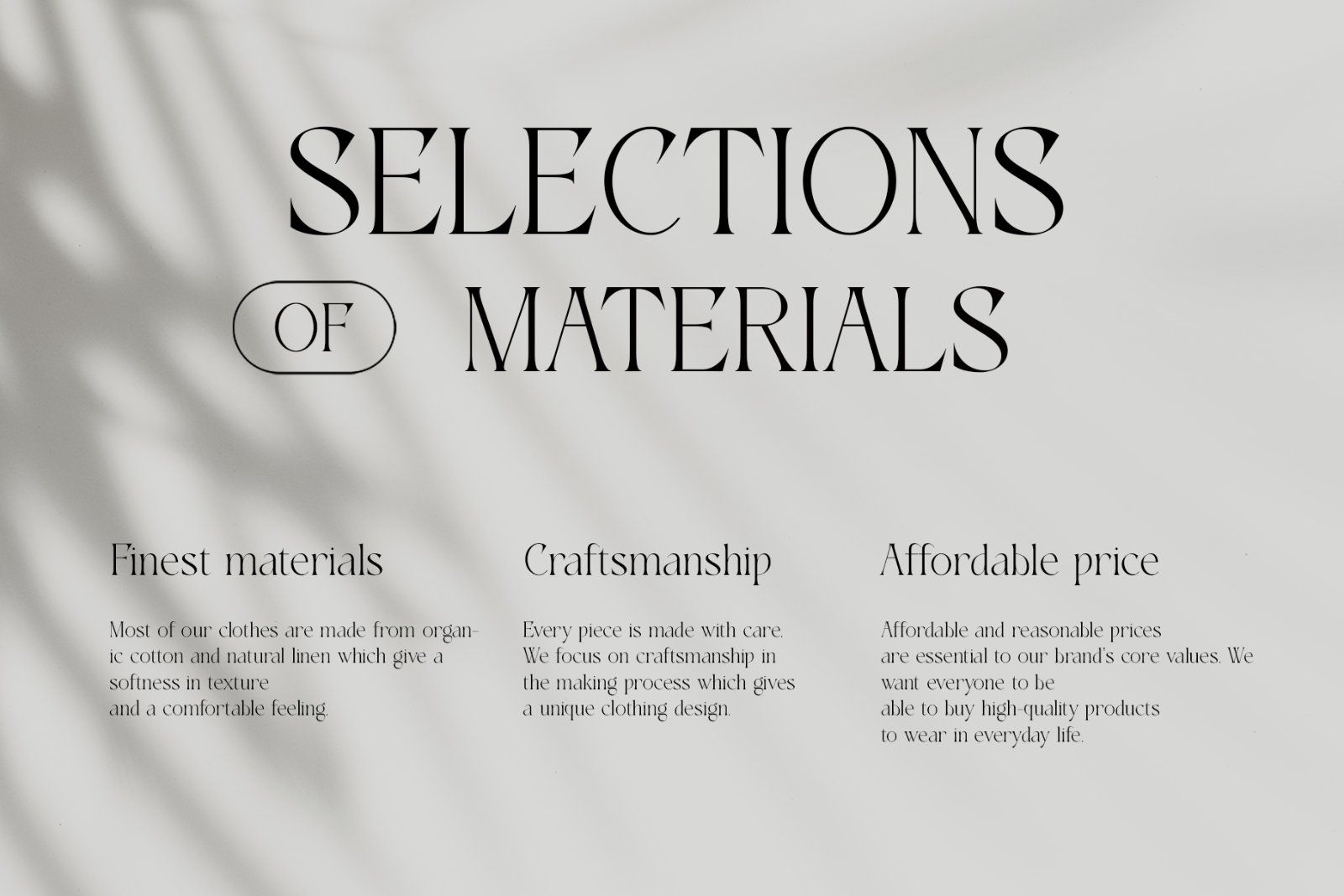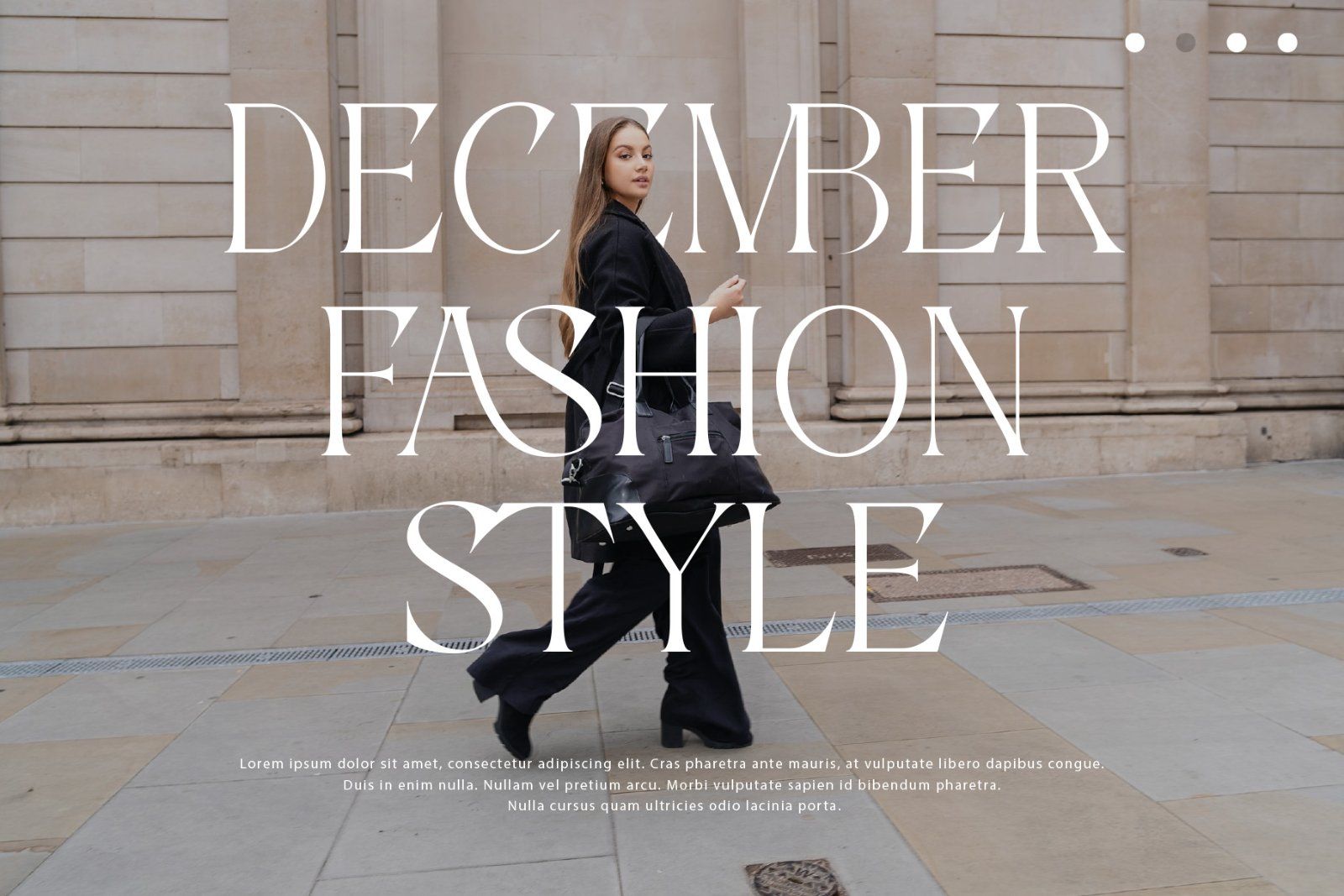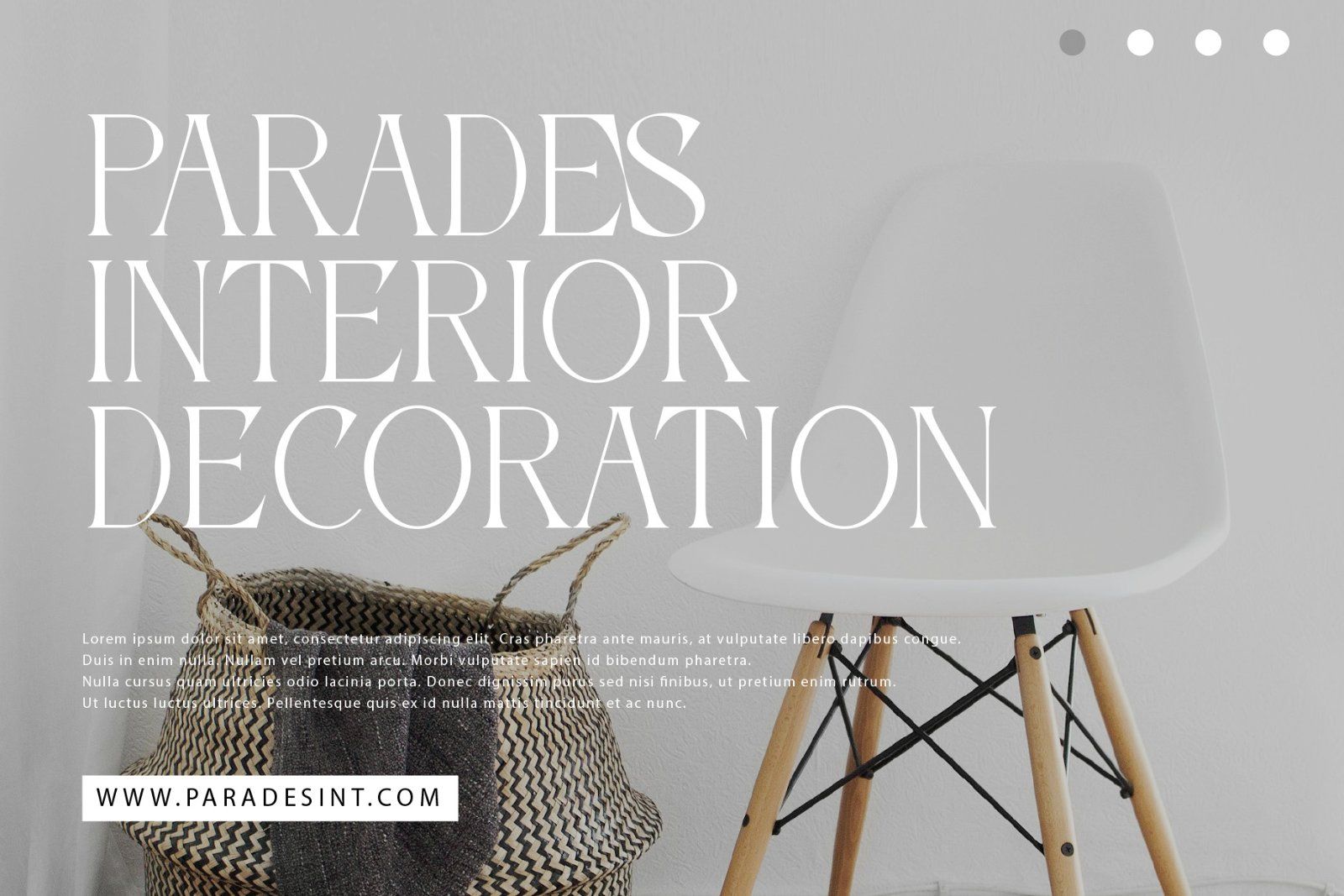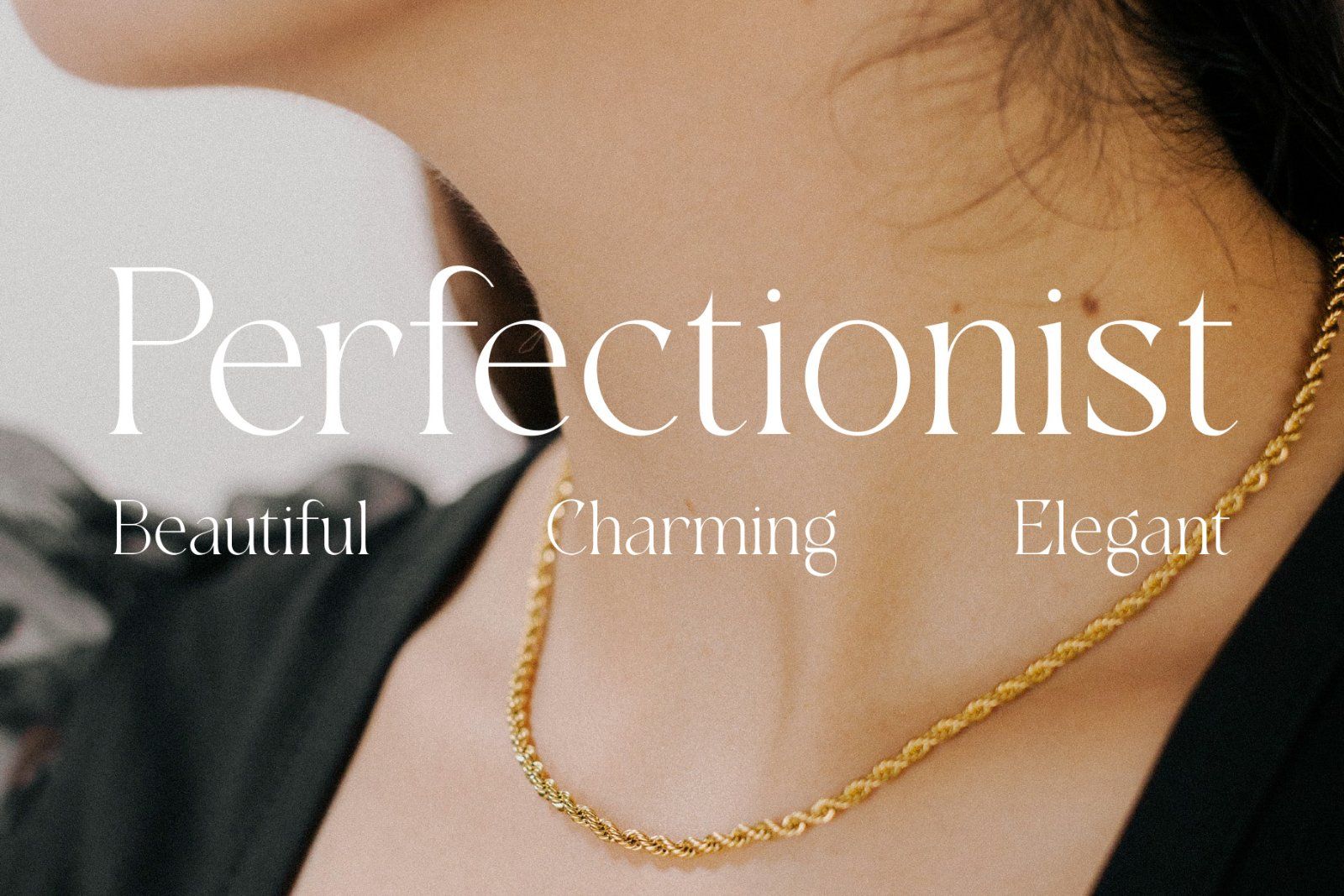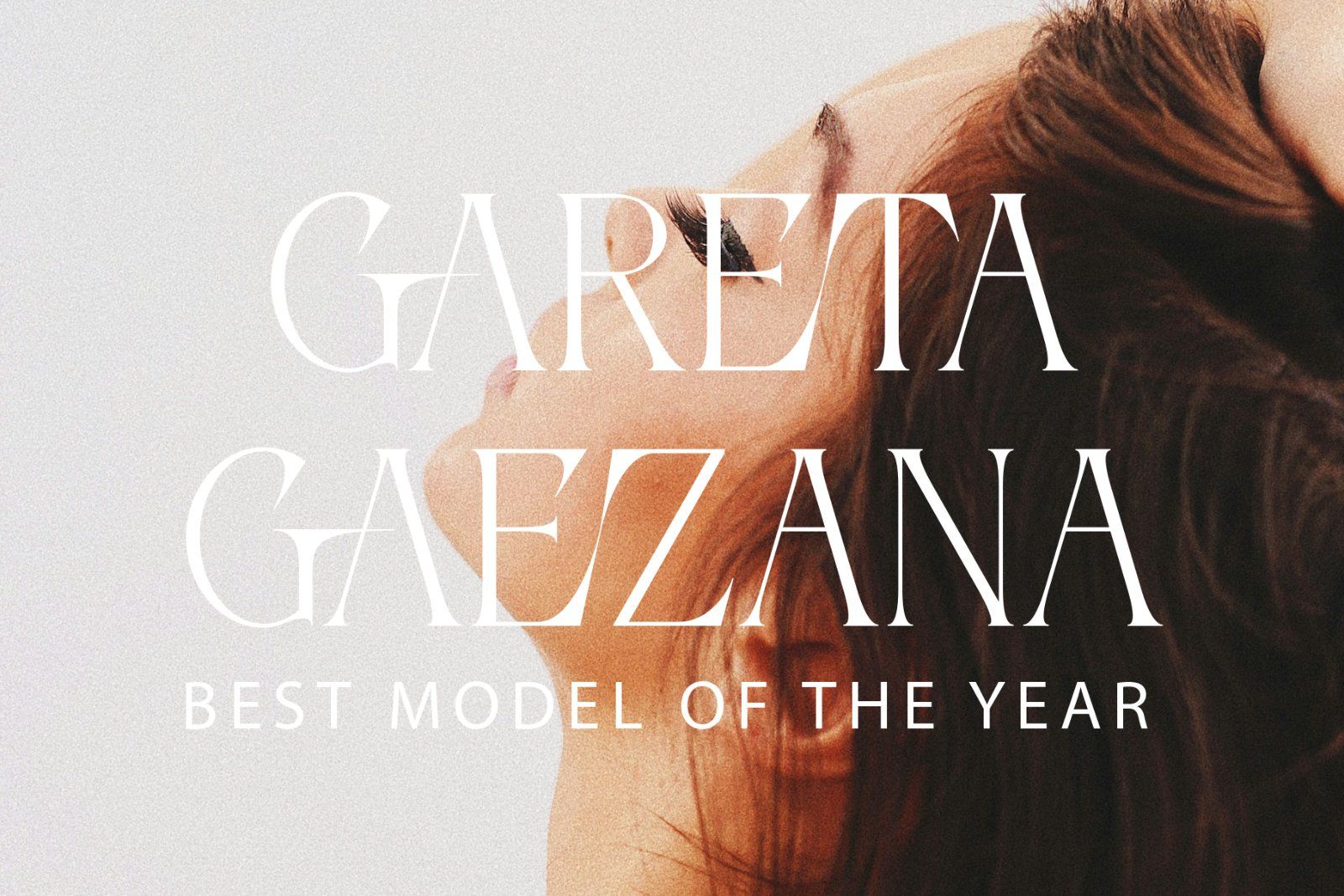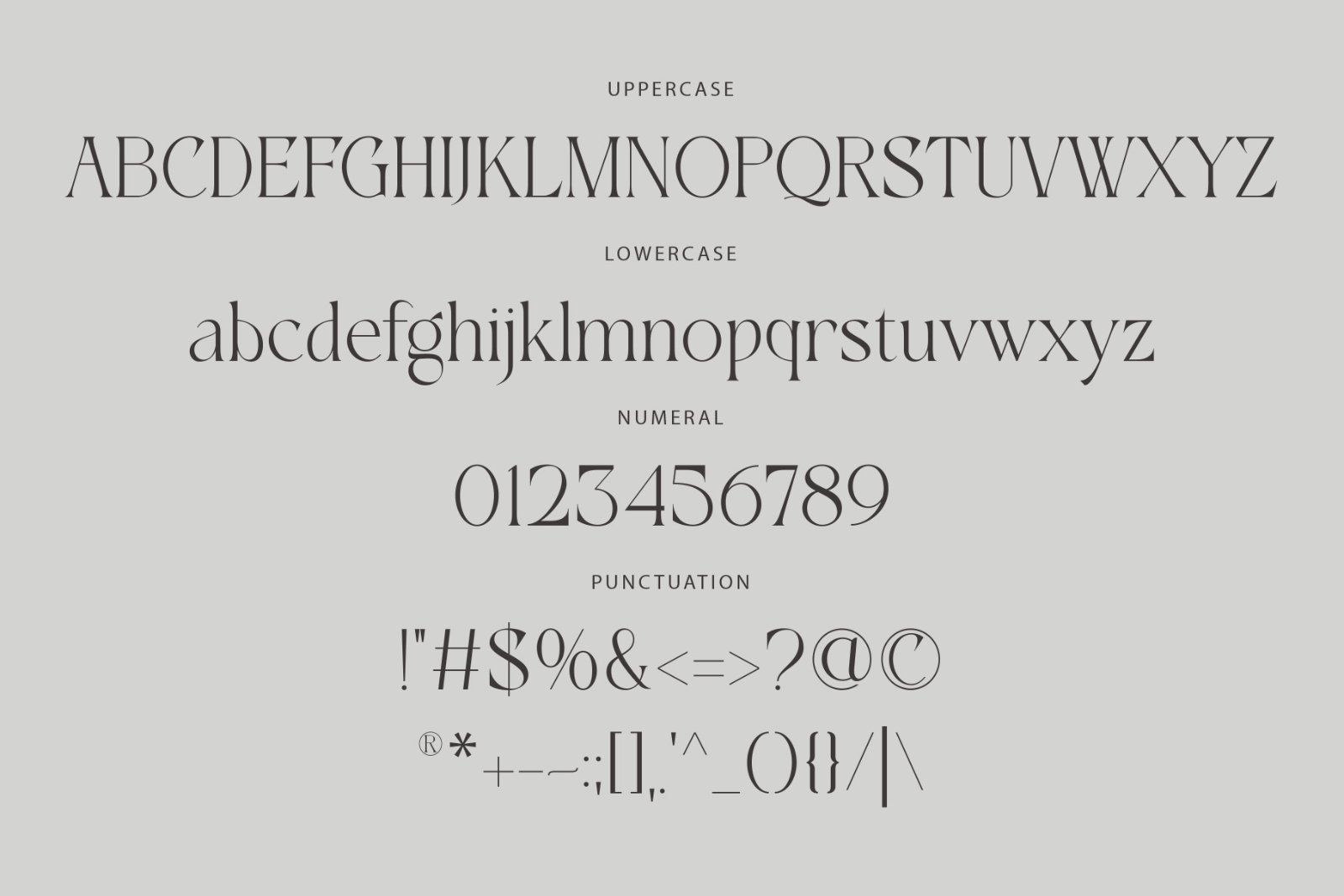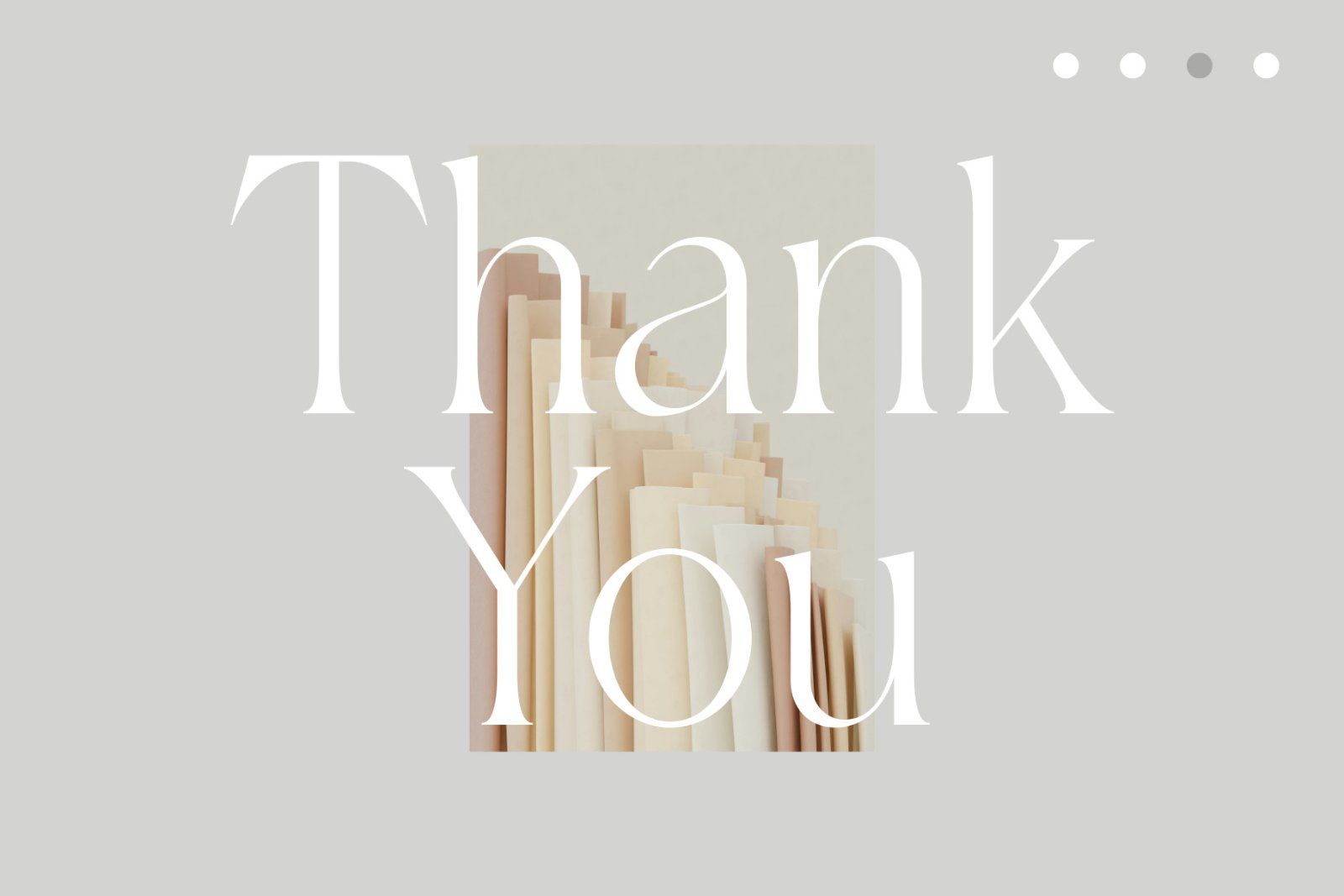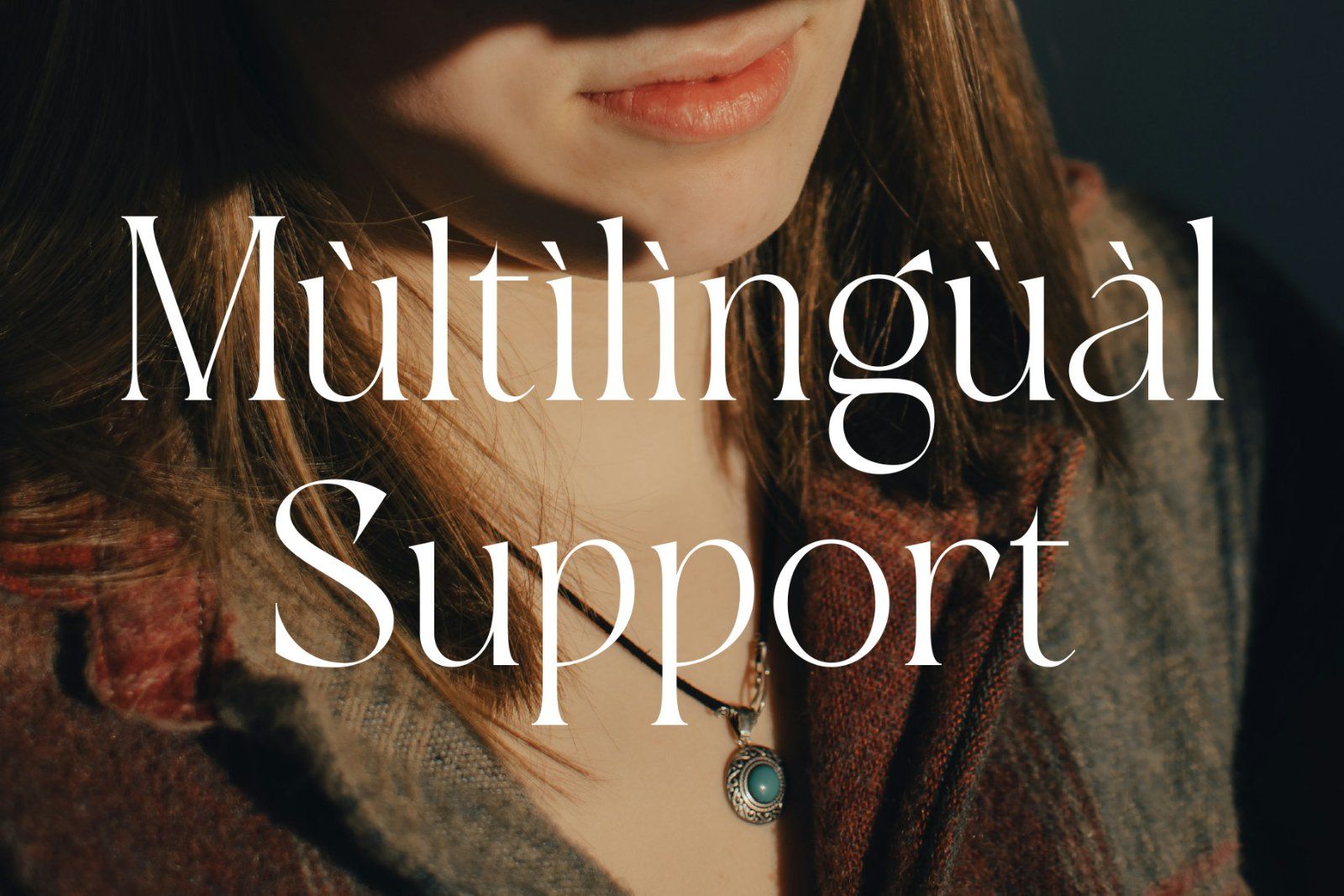
MarketplaceFontsAstetes - Modren And Elegant Serif Font
Introducing Astetes A modern and elegant serif look. With its modern and elegant appearance, Astetes brings a luxurious, minimalist and classy impression to the projects you need such as websites, modern logos, branding identities, social media quotes, wedding stationery, magazines and various other needs!
Astetes displays capital letters A to Z that are unique and classy. And it is equipped with numbering, punctuation, and multilingual support and is also equipped with unique binding letters so that Astetes becomes a beautiful font that can be adapted to various projects and jobs that you want.